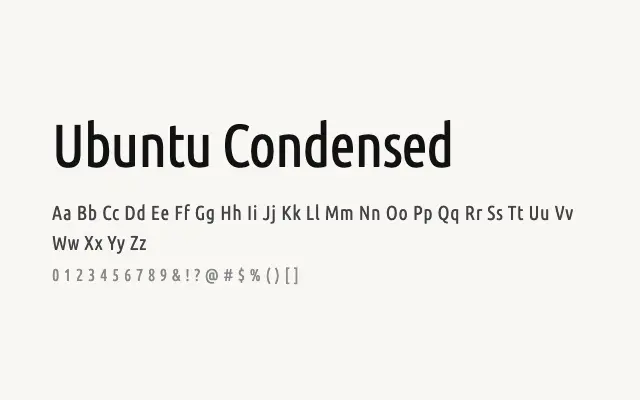
Ubuntu Condensed
Ubuntu Condensed offers the humanist warmth of the Ubuntu family in a space-efficient narrow cut suited to UI and editorial use.
With only a single Regular weight available, its utility is somewhat constrained, but the condensed proportions make it a practical choice for navigation bars, data-dense interfaces, and editorial column headings. The Cyrillic and Greek support carries over from the parent family, maintaining strong multilingual credentials. It pairs naturally with Ubuntu for cohesive typographic systems.
A single-weight condensed companion to Ubuntu, retaining the humanist warmth of the parent family in a space-efficient form. The narrow proportions make it useful for tight UI layouts and navigation elements.